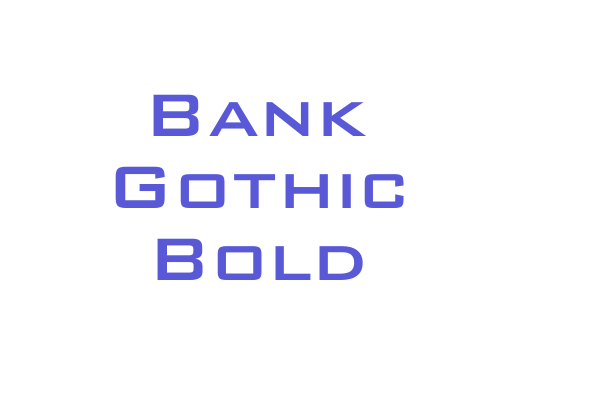
Bank Gothic Bold is a bold sans-serif font from the BankGothic font family. Its clean and modern design makes it perfect for a wide range of applications, from headlines and titles to logos and branding. This versatile font is ideal for conveying a sense of strength and professionalism in various design projects.
Font Name: Bank Gothic Bold
Font Family: BankGothic